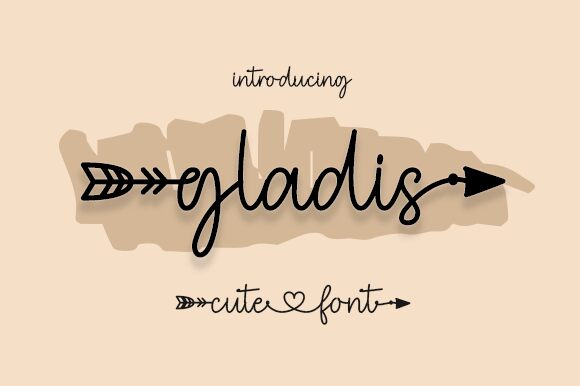
Gladis, a captivating handwritten font by Danar Nugroho, will bring a touch of elegance to your projects.
With its light weight, this font exudes a delicate and refined aesthetic that is perfect for invitations, wedding stationery, and feminine branding materials. Its fluid strokes and natural curves add a personal and authentic feel to any design. Whether you're creating stunning logos or eye-catching social media graphics, Gladis will effortlessly enhance the visual appeal of your work.